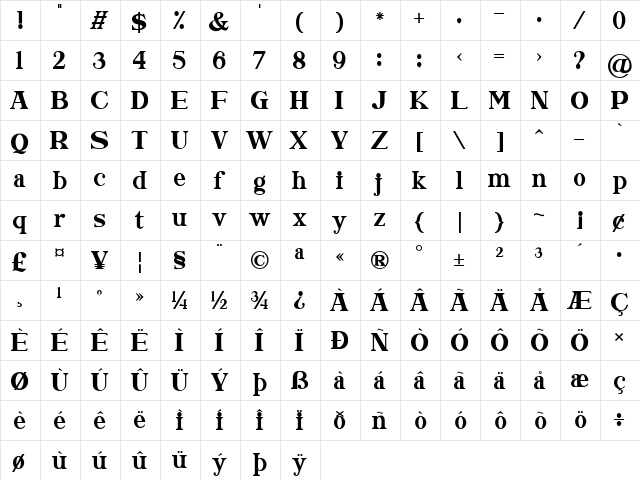
Morning Sunshine Regular
Design Context for Morning Sunshine Typeface
Morning Sunshine takes a measured approach to typography — its balanced proportions and neutral character make it a reliable workhorse for both digital and print work.
Pro Tip: Use Morning Sunshine in both headline and body roles to test its range before committing to a single application.